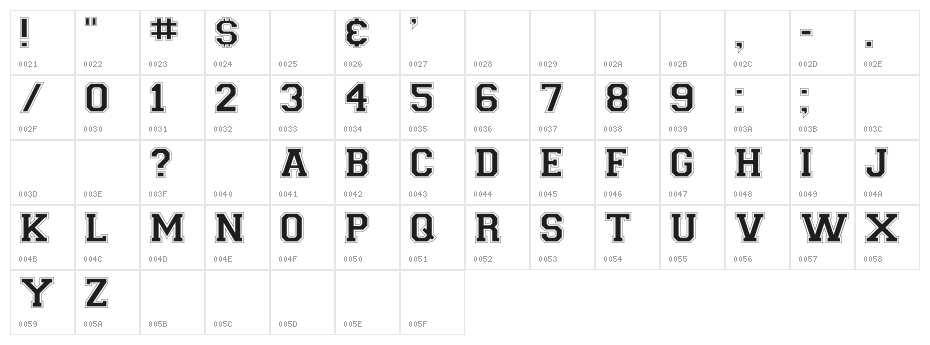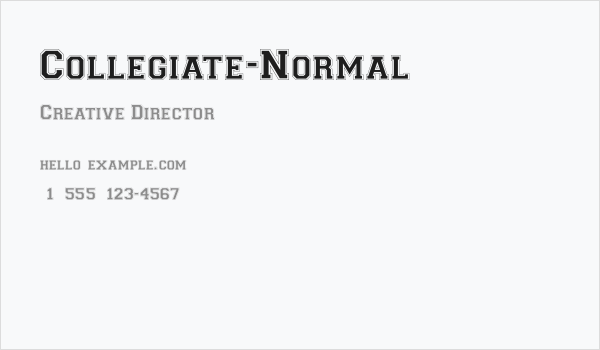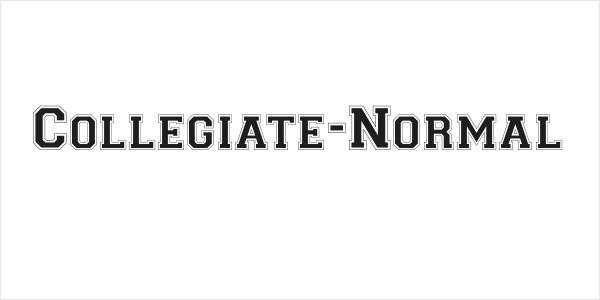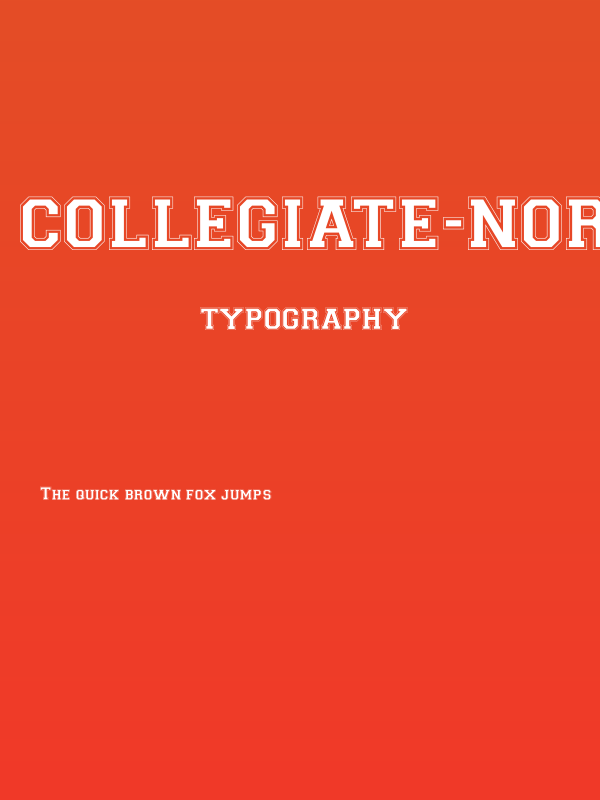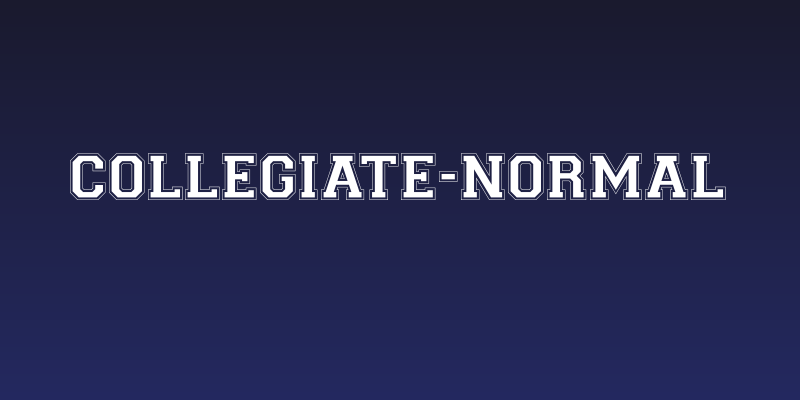
Collegiate-Normal Font
Collegiate-Normal Description
This font embodies a bold, collegiate style reminiscent of traditional varsity lettering. The characters are uppercase with a strong, blocky appearance, featuring a double outline that enhances their boldness and visibility. The design is clean and structured, with a uniform stroke width that gives it a solid and reliable feel. The spacing between characters is moderate, ensuring readability while maintaining a compact look. The numbers and special characters follow the same stylistic cues, making the font versatile for various uses. Its classic yet sporty aesthetic makes it ideal for projects that require a sense of tradition and strength.
| Overall Style | Classic |
| Use Case | Logos, Headlines |
| Proposed Projects | Ideal for sports team logos, school branding, event posters, and merchandise designs. |